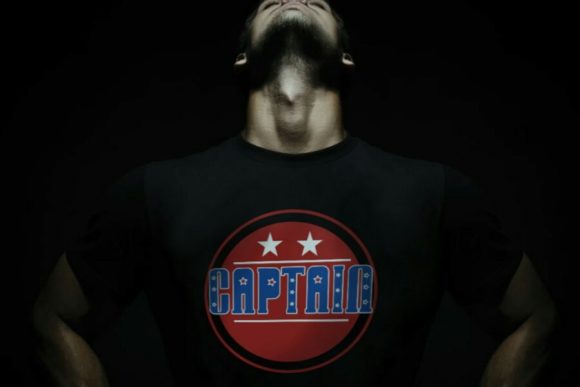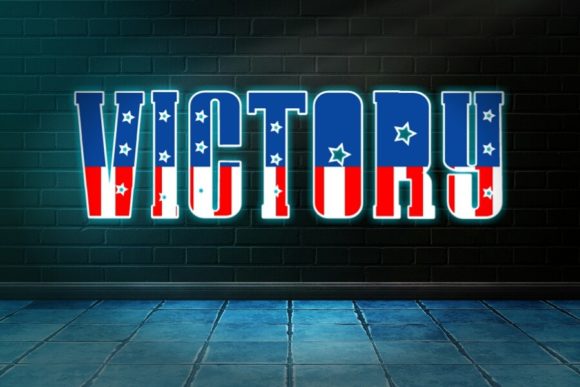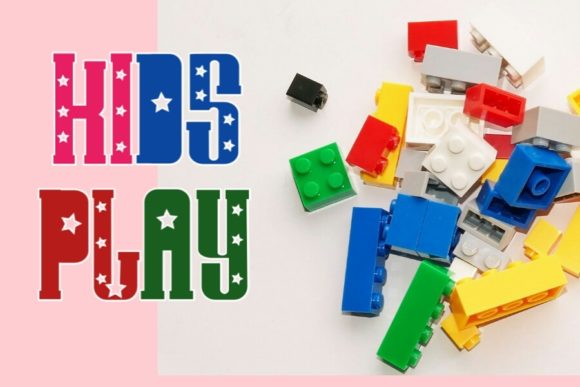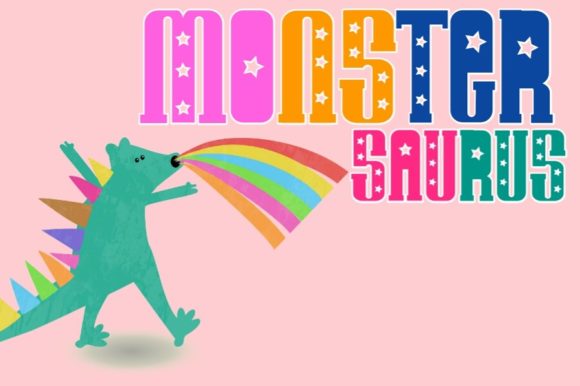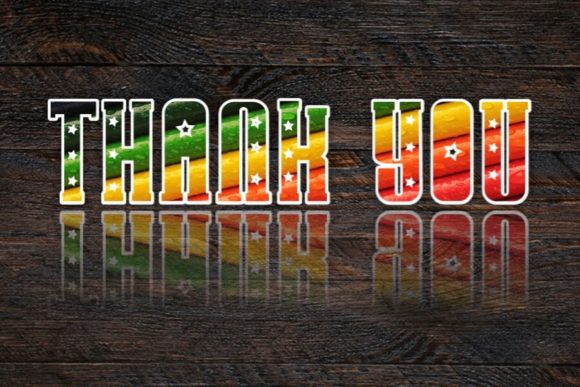
Introducing American Font: A Retro-Styled Display Font for Joyful Designs
Are you looking for a font that adds a touch of nostalgia and playfulness to your designs? Look no further than American Font, an incredibly unique and retro-styled display font. With its interestingly shaped letters, this font is perfect for adding a joyful touch to your favorite 4th of July designs or any project that requires a bit of whimsy.
What Makes American Font So Special?
American Font is a one-of-a-kind display font that stands out from the crowd with its retro flair and distinctive lettering style. Its unique shape and design make it perfect for headlines, titles, and any other text that needs to grab attention. Whether you’re designing a poster, flyer, or social media graphic, American Font is sure to add a touch of personality and charm.
Perfect for 4th of July Designs
The 4th of July is a holiday that’s all about patriotism, celebration, and fun. American Font is the perfect addition to any 4th of July design, from invitations and posters to social media graphics and party decorations. Its retro-style charm and joyful vibe make it an ideal choice for adding a touch of nostalgia and whimsy to your designs.
Imagine using American Font to create eye-catching headlines and titles for your 4th of July designs, such as:
- “Happy 4th of July” party invitations
- Patriotic posters and flyers
- Social media graphics and banners
- Custom party decorations, such as banners and garlands
Beyond the 4th of July: Using American Font in Other Projects
While American Font is perfect for 4th of July designs, its versatility extends far beyond this one holiday. This font can be used in a wide range of projects that require a touch of joy and playfulness, such as:
- Birthday party invitations and decorations
- Summer-themed designs, such as beach and pool party graphics
- Retro-style branding and packaging designs
- Fun and playful social media graphics and posts
Tips for Using American Font Effectively
To get the most out of American Font, here are a few tips to keep in mind:
- Use it sparingly: American Font is a bold and attention-grabbing font, so use it sparingly to avoid overwhelming your design.
- Pair it with complementary fonts: American Font pairs well with clean and simple fonts, such as Arial or Helvetica.
- Experiment with colors: American Font looks great in bold and bright colors, such as red, white, and blue.
American Font is a unique and playful display font that’s perfect for adding a touch of joy and whimsy to your designs. With its retro-style charm and distinctive lettering style, this font is sure to grab attention and add personality to any project. Whether you’re designing for the 4th of July or just looking for a fun and playful font, American Font is a great addition to any design library.